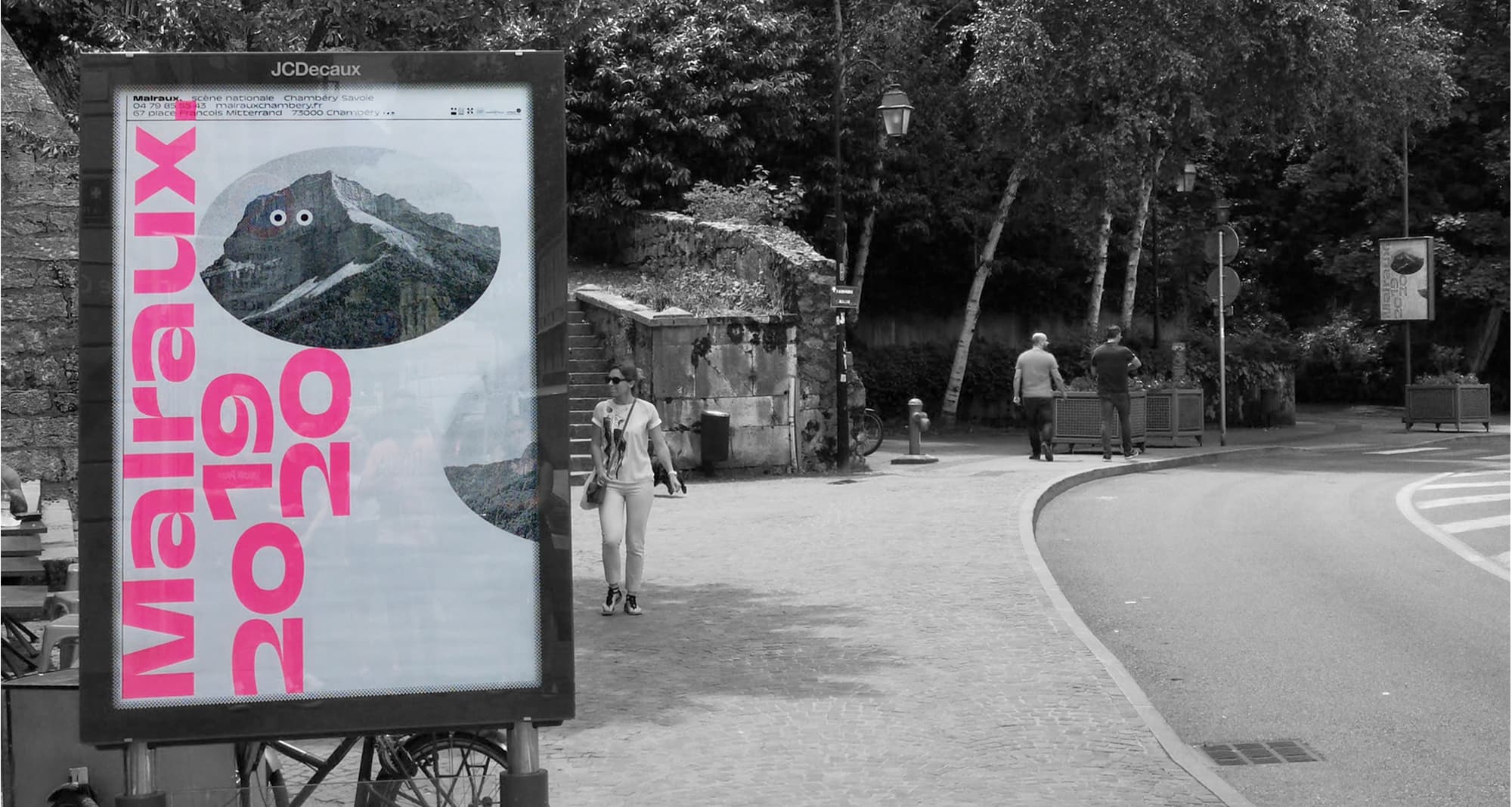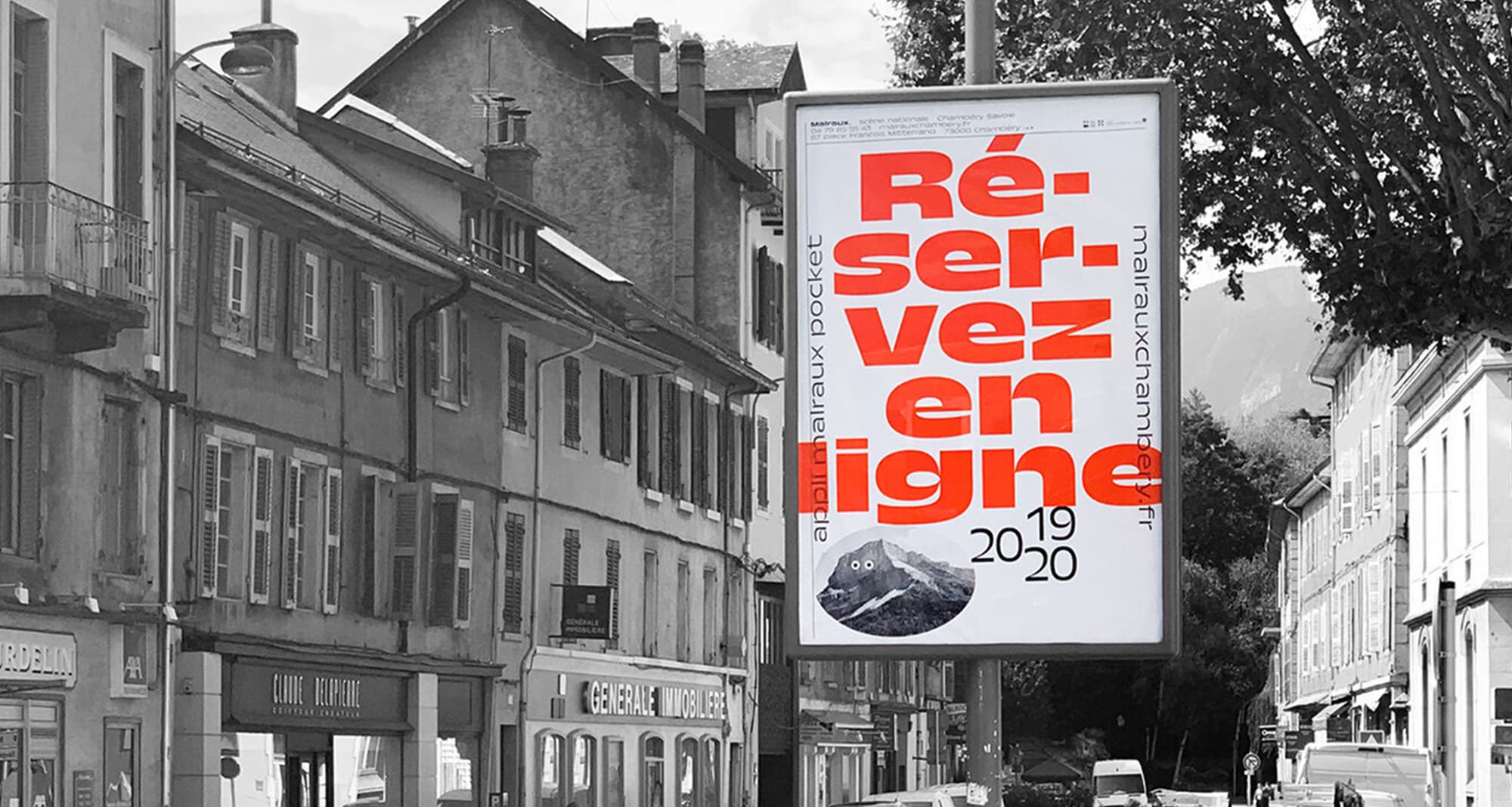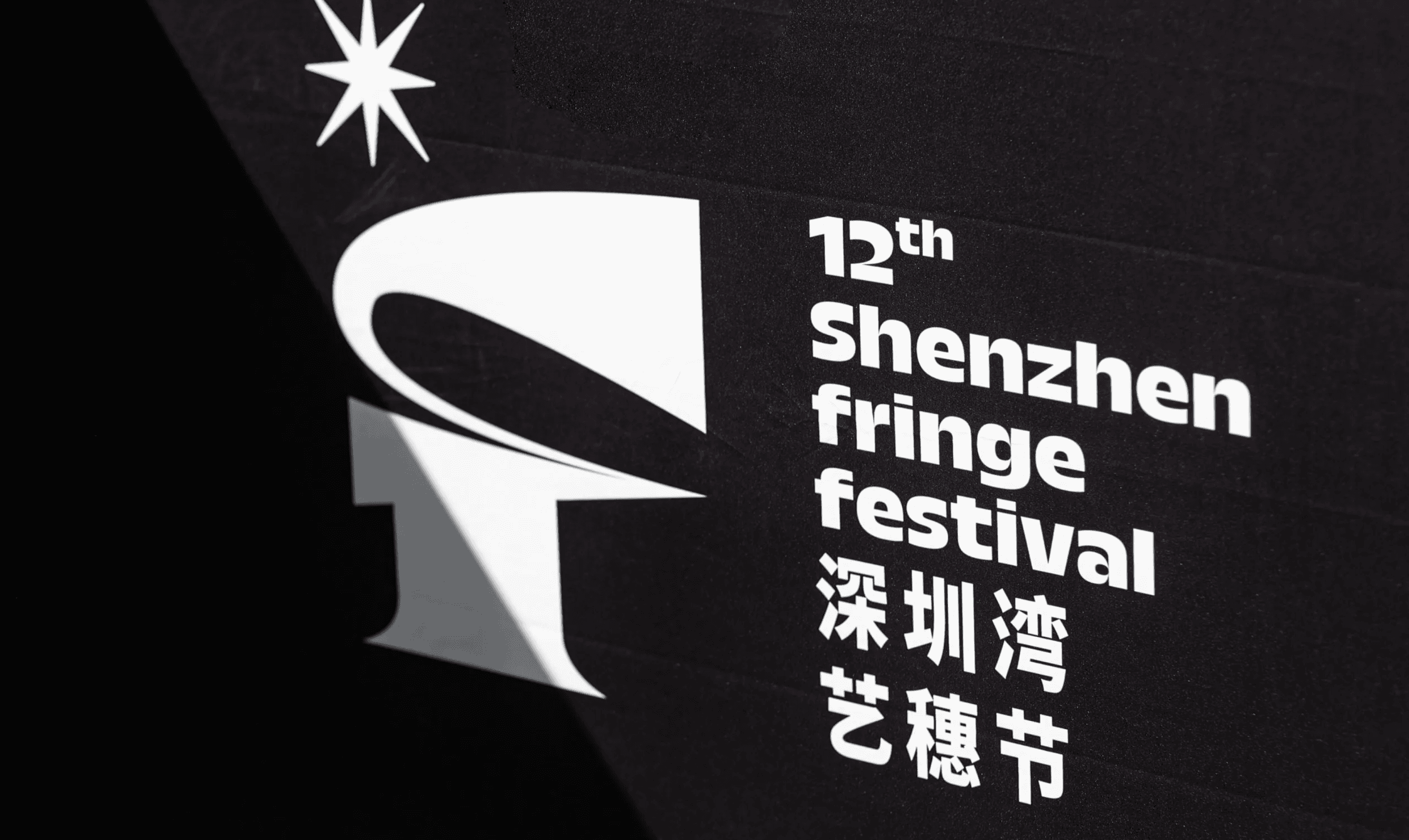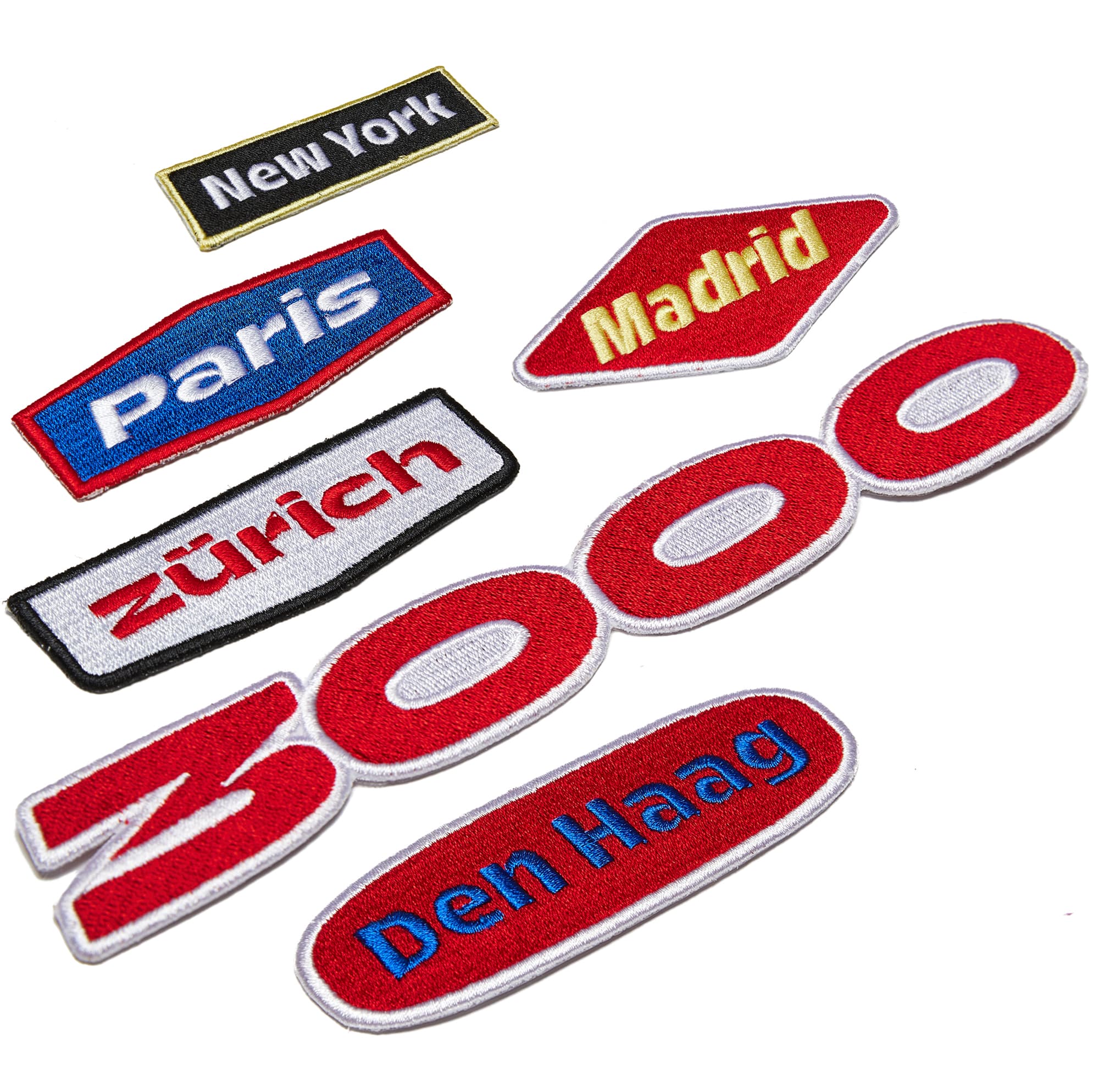
Trois Mille
When Trois Mille was first introduced to the world as Marc Rouault’s TypeMedia thesis project in 2016, word got out quickly. In a field where innovation happens very slowly, this was something special. Dynamic. Expansive. Distinctly French. Initially inspired by the great modern master Roger Excoffon, Trois Mille redefined its genre as it transcended it. The novel construction methodology of Trois Mille rippled out into the zeitgeist of contemporary typeface design and moved the needle of aesthetic culture. Now, after 5 years in the making, Trois Mille has grown into a masterfully executed family, spanning 7 weights in 21 widths of roman and italic styles.
Patches chronicle the journey to Trois Mille, places Marc lived and worked on the typeface.
Trois Mille Weight and Width Range.
In use for Malraux, a theater and concert hall in Chambéry.
Malraux is a theater and concert hall in Chambéry, France.
Superscript
Tabular Figures
Slashed Zero